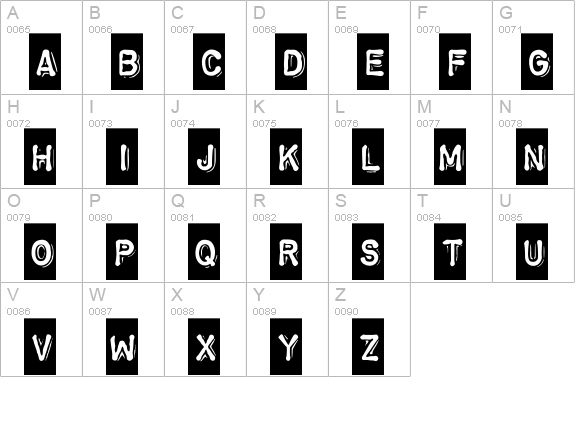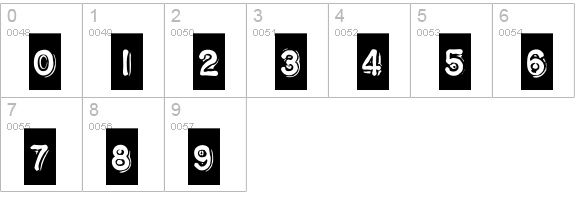
ChromosomeReversed-Heavy Font Details
ChromosomeReversed-Heavy is a heavy, high-impact variant in the ChromosomeReversed typeface family \xE2\x80\x94 well suited to high-impact headlines, posters, and display advertising.
ChromosomeReversed-Heavy font is a bold and striking typeface that commands attention with its unique design. This font features reversed letterforms that create a visually intriguing and modern look. Perfect for headlines, posters, and branding projects that require a strong and impactful visual presence. The ChromosomeReversed-Heavy font is both stylish and versatile, making it suitable for a wide range of design applications. Its heavy weight and distinctive letter shapes make it ideal for making a statement and standing out from the crowd. Best of all, ChromosomeReversed-Heavy font is available for free download at FontsMarket.com. Whether you're a designer looking to add a bold touch to your projects or a creative looking to experiment with a fresh new typeface, ChromosomeReversed-Heavy font is the perfect choice. Download it now and unleash your creativity with this eye-catching and dynamic font.